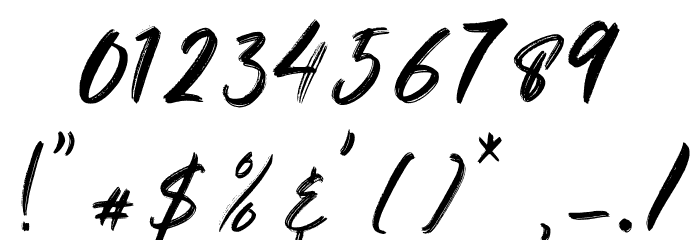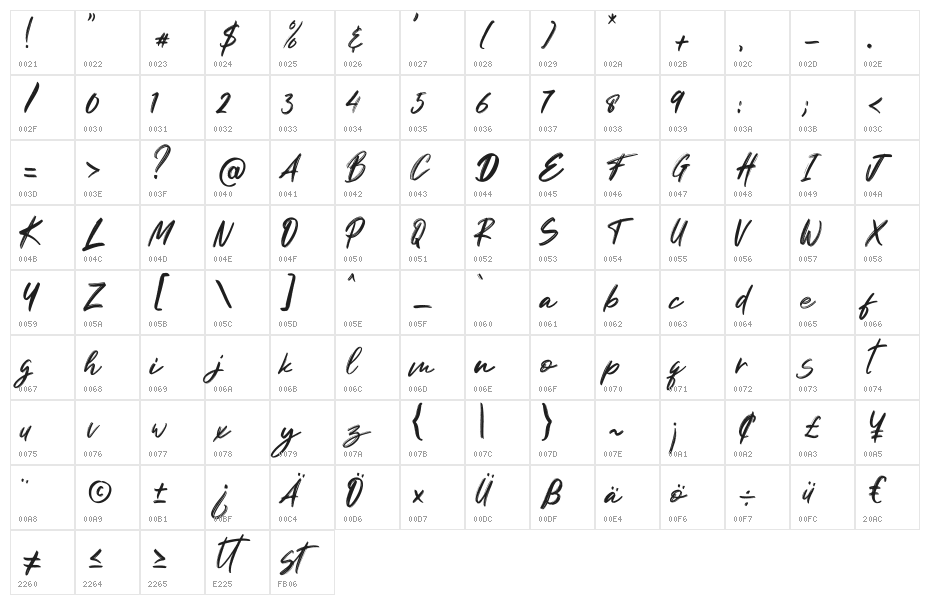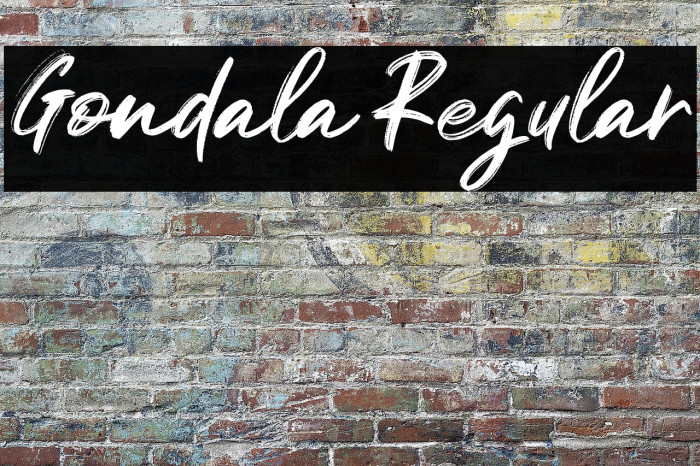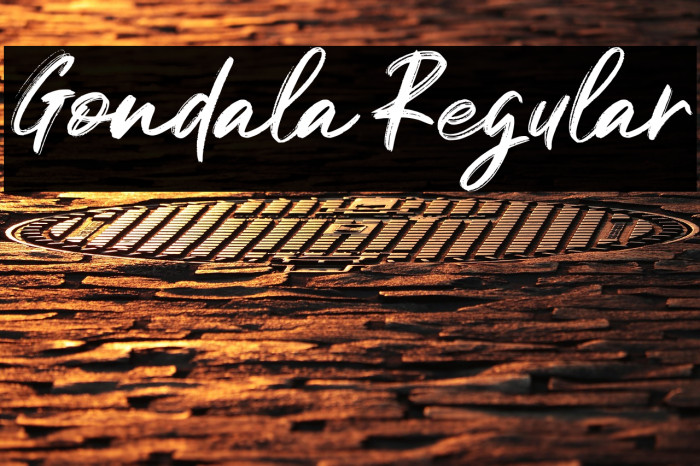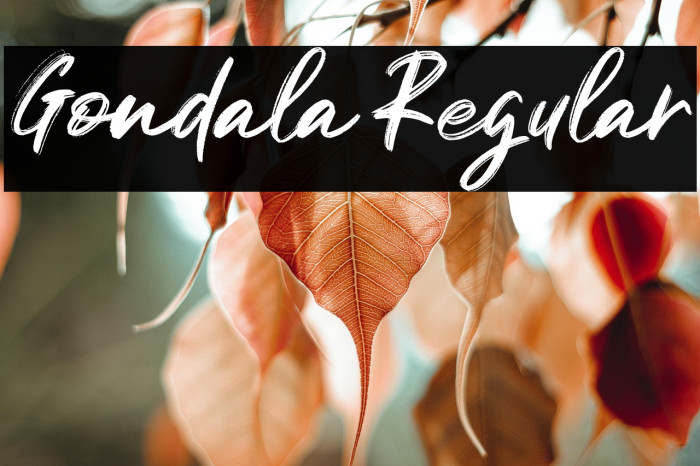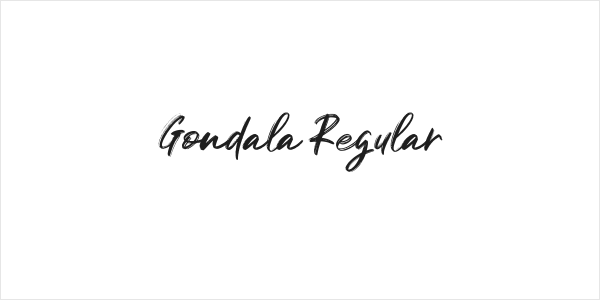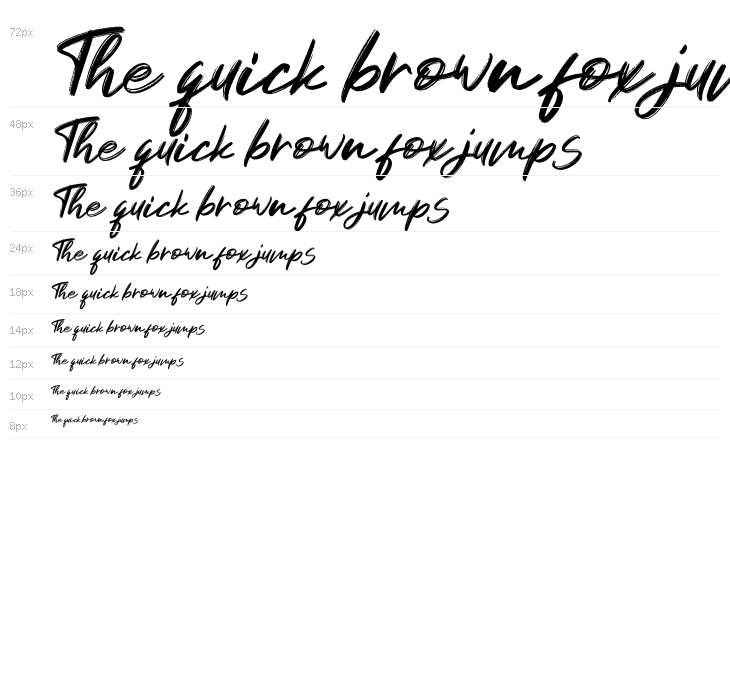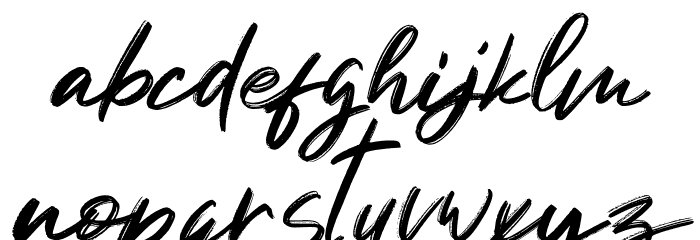
Gondala Regular Font
Gondala Regular Description
This font exudes a dynamic and energetic style, characterized by its bold, brush-like strokes that give it a hand-painted appearance. The letters are fluid and expressive, with a sense of movement that suggests a casual yet artistic flair. The uppercase letters are particularly striking, with their sweeping lines and varying thicknesses, while the lowercase letters maintain a consistent flow that complements the overall design. The numerals and special characters are equally expressive, ensuring a cohesive look across all text elements. This font is ideal for projects that require a personal touch or a creative, informal vibe.